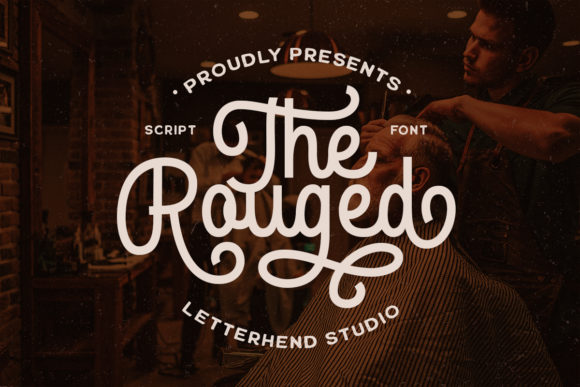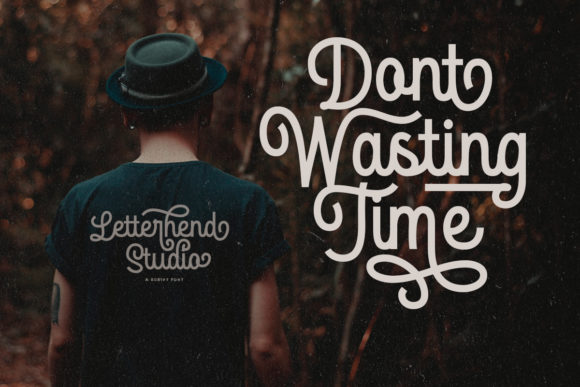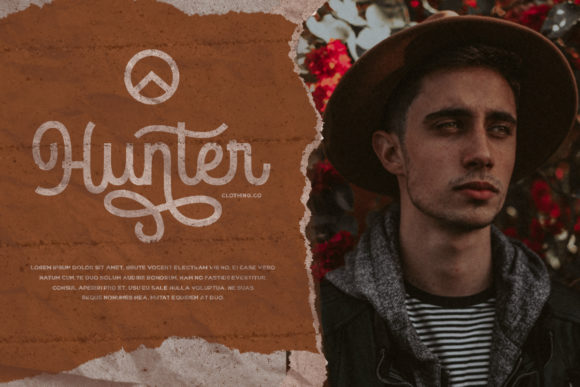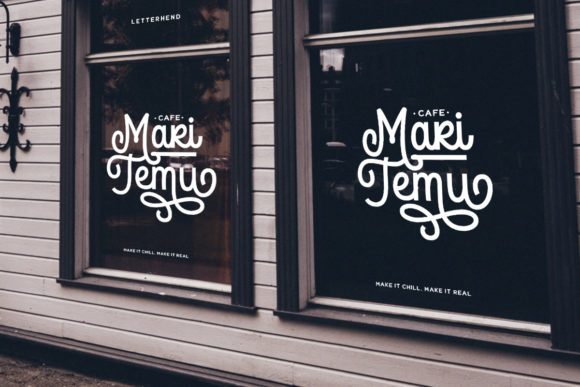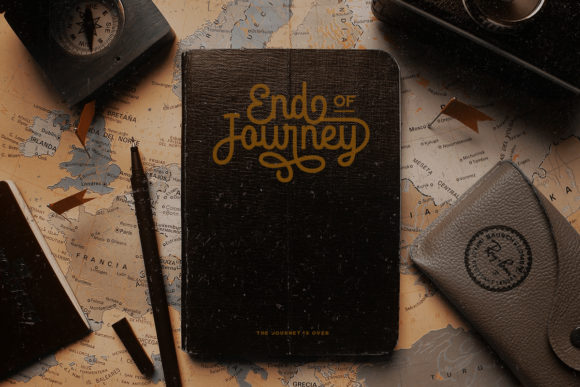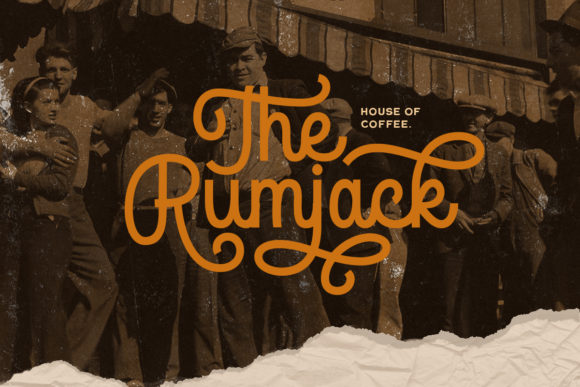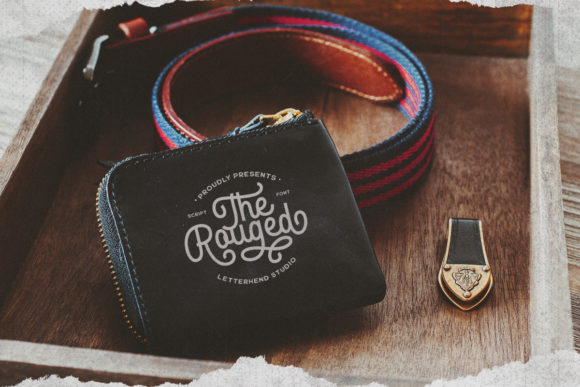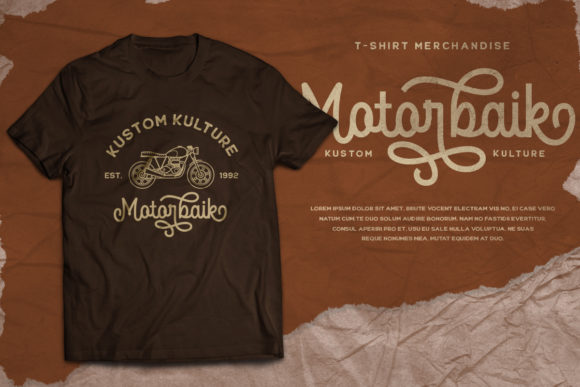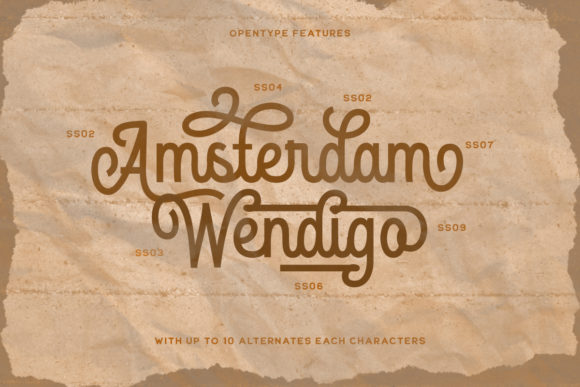
The Rouged Font
The Rouged is sophisticated and charming, but also playful. This versatile font has a wide range of applications ranging from Instagram posts to covers, and is guaranteed to add a unique feel to your next design.
This font is PUA encoded which means you can access all of the gorgeous glyphs and swashes with ease! It also features a wealth of special features including alternate glyphs and ligatures.